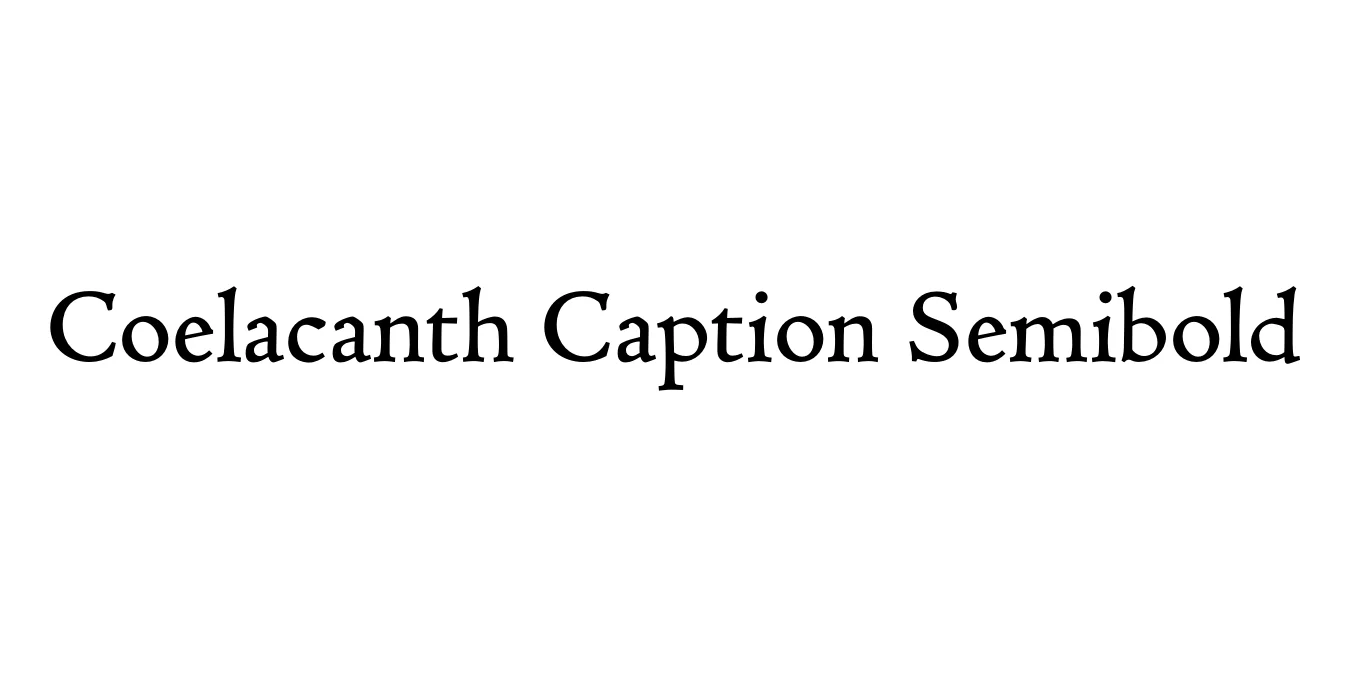
Coelacanth Caption Semibold
Designed by Ben Whitmore
Coelacanth Caption Semibold is a distinguished member of the Coelacanth font family, a project initiated by Ben Whitmore to create a high-quality, open-source typeface inspired by the classic Centaur design by Bruce Rogers. This specific variant, the Caption optical size, is meticulously engineered to ensure maximum legibility at very small point sizes. By featuring sturdier serifs, a slightly higher x-height, and thicker strokes than the standard weight, it excels in environments where smaller text might otherwise become difficult to read or wash out during the printing process.
Rooted in the Venetian Old Style tradition, the font carries a historical elegance characterized by its slanted crossbar on the lowercase 'e' and its graceful, organic curves. The Semibold weight provides a robust presence without sacrificing the delicate aesthetic of its ancestors. Because it is released under the SIL Open Font License, it has become a favorite among the open-source community for scholarly publications, fine book design, and complex typesetting projects that require a wide range of weights and optical adjustments.
Coelacanth Caption Semibold Best Uses
Highly legible at small sizes for references and citations.
Designed specifically for image labels and sidebar descriptions.
Ideal for journals and textbooks requiring a classic, authoritative feel.
Maintains clarity in dense legal or technical documentation.